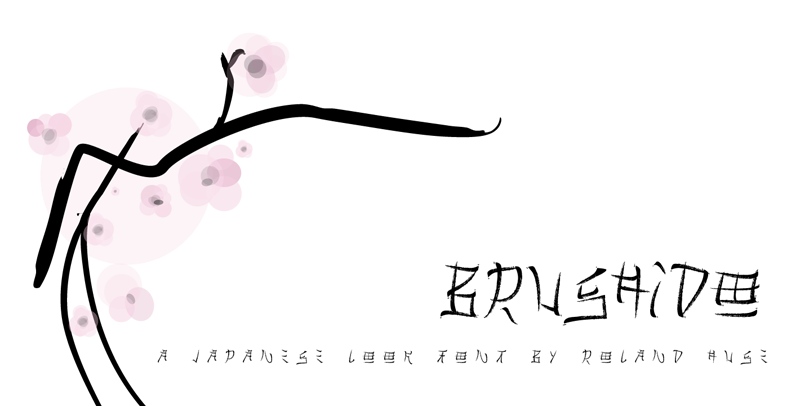
BRUSHIDO is an experiment on making a font look like japanese lettering with brush. It contains only letters A-Z. This font is free for PERSONAL use only. For any commercial use (anything you make money from), you must send a paypal donation to myhandwritings@gmail.com. I am open to develop this further on request like numbers and accents maybe modifications on letters for better readability. So feel free to give me feedback and any other question you can contact me via myhandwritings@gmail.com You MAY NOT sell my fonts or claim them as your own. You MAY NOT edit or rename my fonts. You MAY redistribute my fonts if: 1. You credit me (Roland Huse). 2. Keep the READ ME file intact within the zip folder. 3. Provide a link back to my website (www.rolandhuse.com). Thank you & I hope you like this font, Roland http://www.rolandhuse.com https://www.facebook.com/pages/Runes-And-Fonts/123221817784772 |